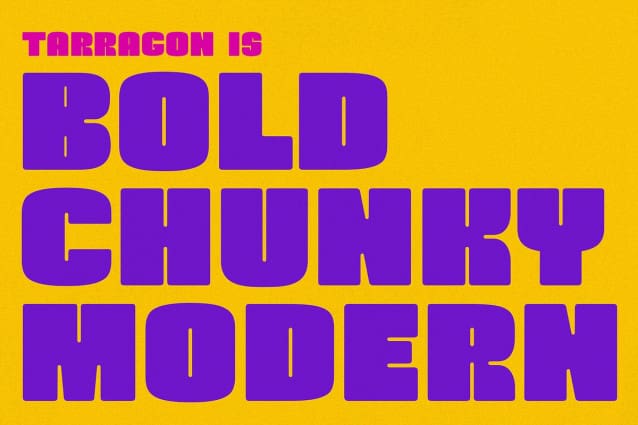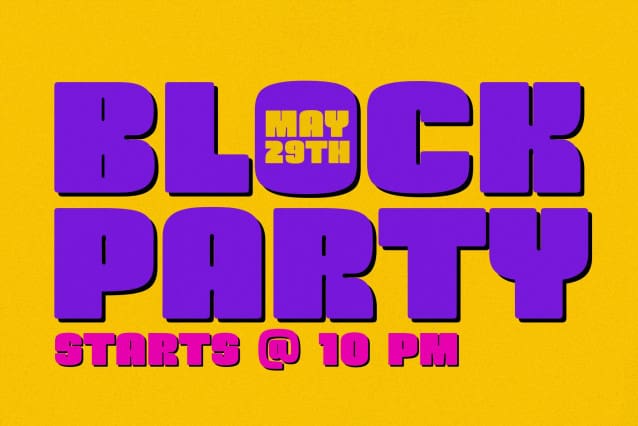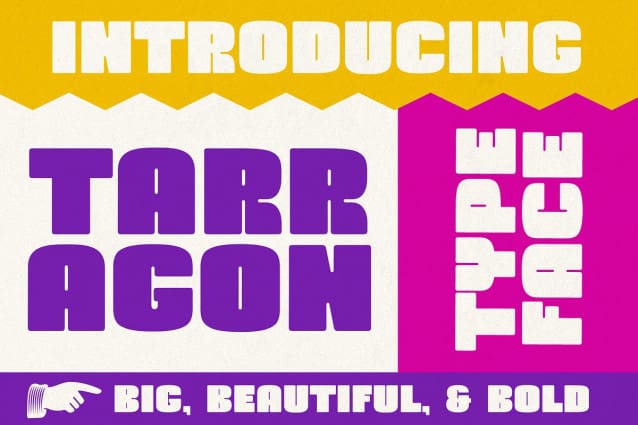
Tarragon Font
Tarragon Font is an authoritative display typeface. It is thick, it is bold, it is modern. Perfect for eye grabbing designs that don’t take themselves too seriously. You can use Tarragon for headlines, social media, gig posters, logos, packaging, advertising, and much more. You can also easily create an extrude effect by duplicating the font.